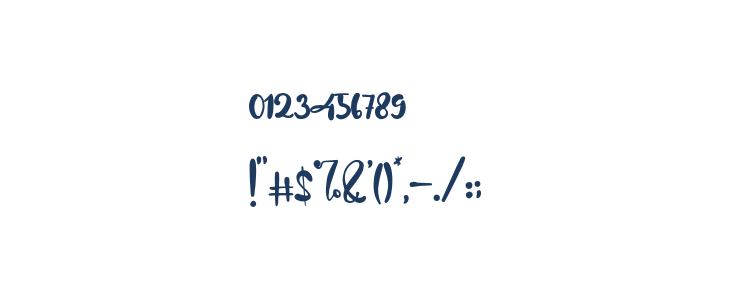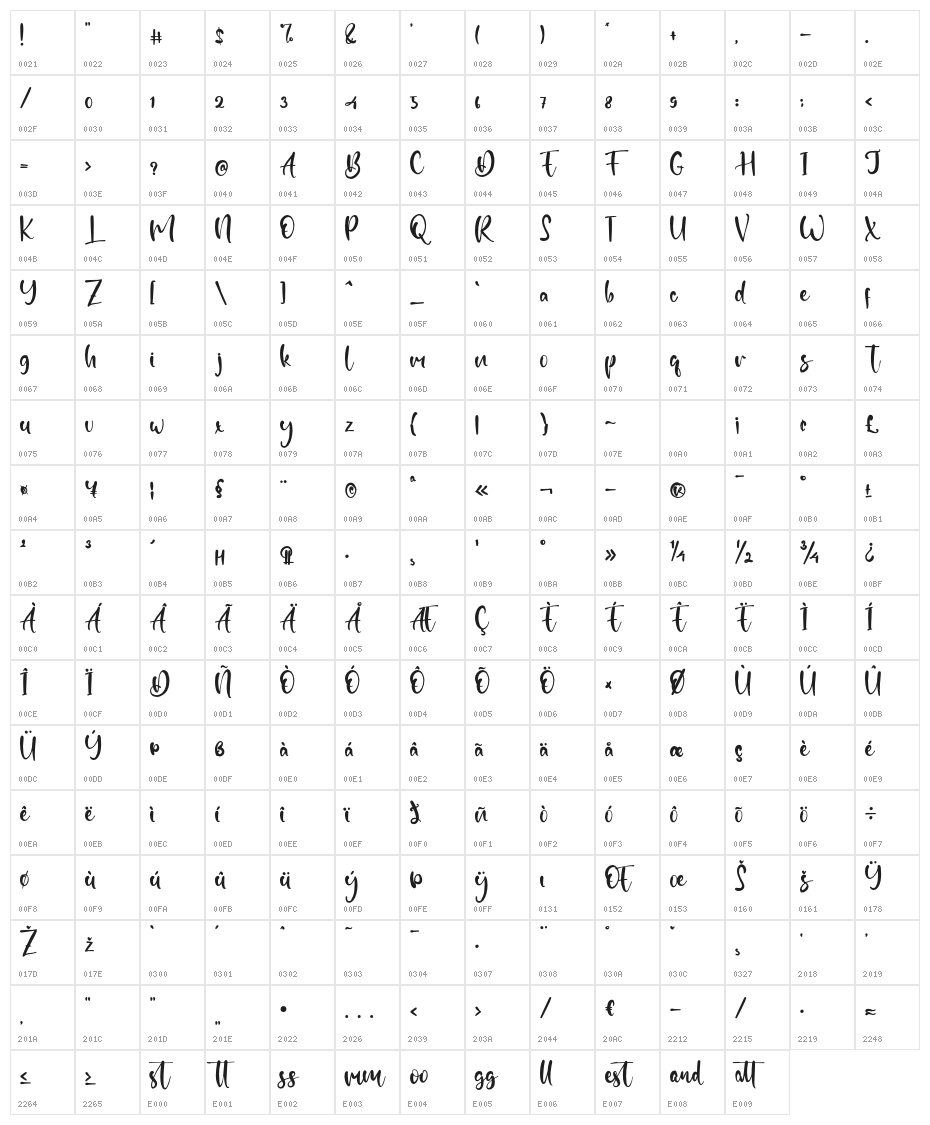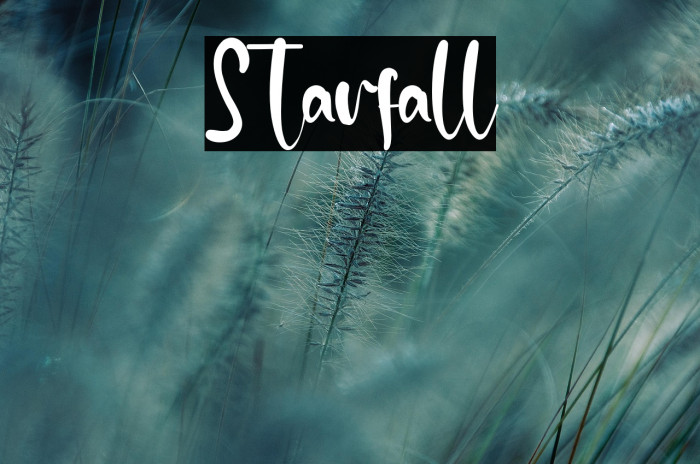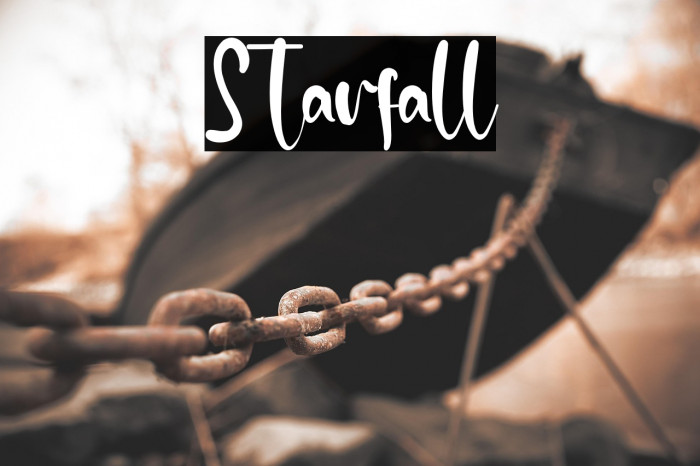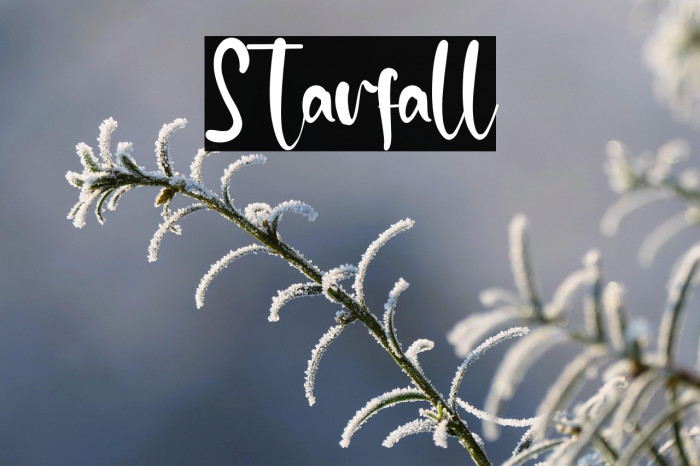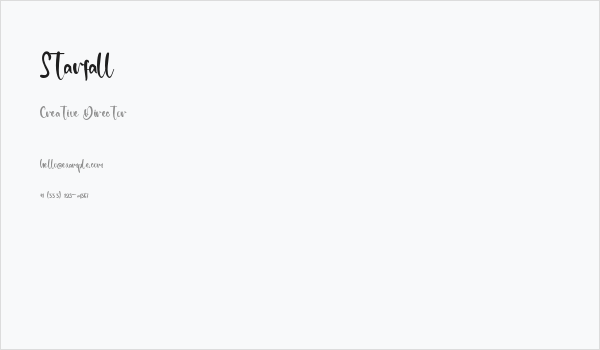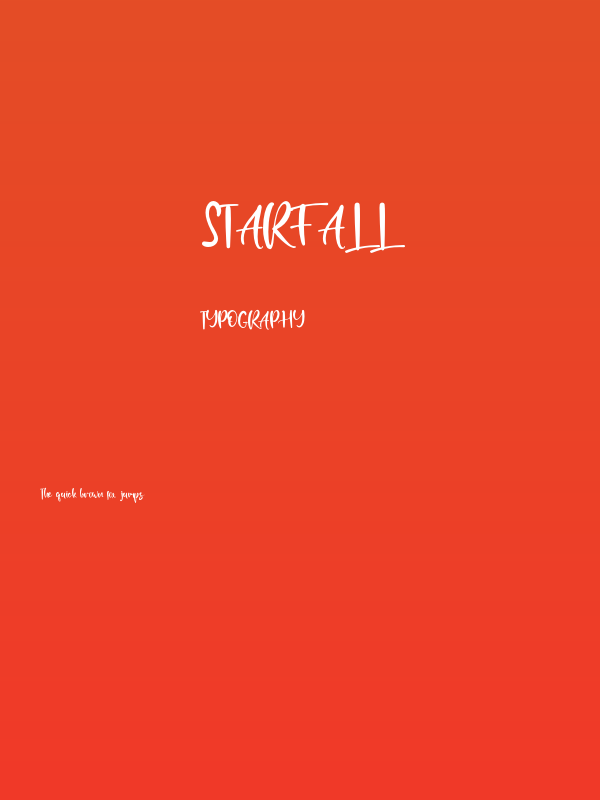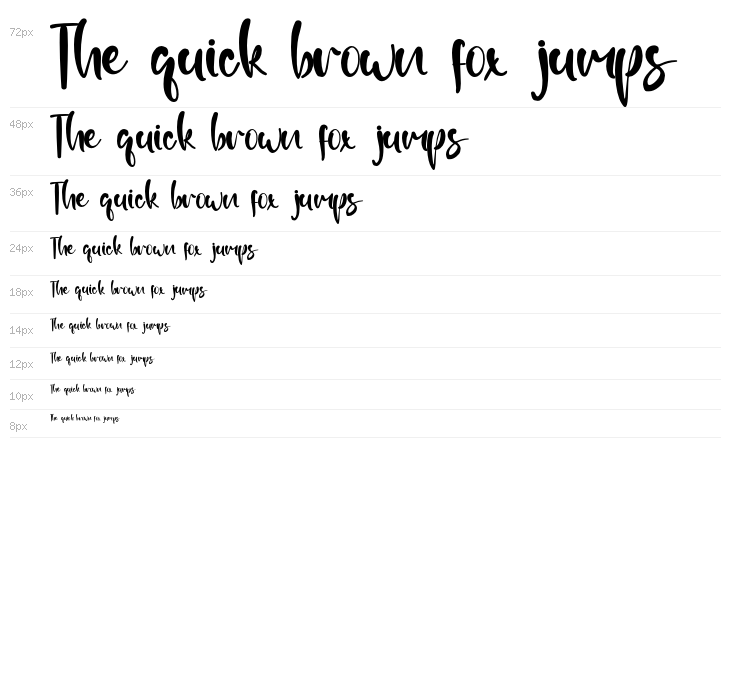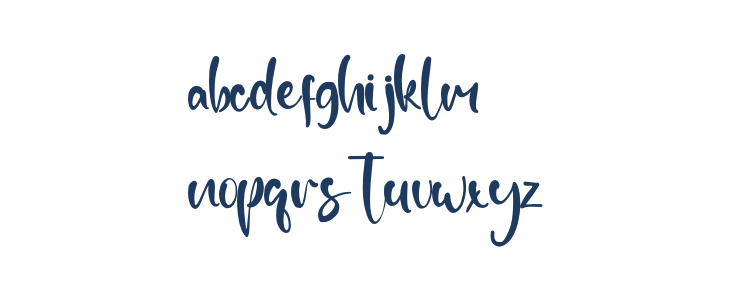
Starfall Font
Starfall Description
This font features a playful and energetic script style with a hand-drawn appearance. The letters are characterized by their flowing, cursive forms and varying stroke thickness, giving it a dynamic and lively feel. The uppercase letters are bold and slightly exaggerated, while the lowercase letters maintain a more consistent flow. The numerals and special characters complement the overall style with their whimsical curves and loops. This font exudes a sense of fun and creativity, making it ideal for projects that require a personal and informal touch.
| Use Case | Headlines, Logos, Invitations |
| Proposed Projects | Ideal for greeting cards, invitations, posters, and branding that require a personal, creative touch. |